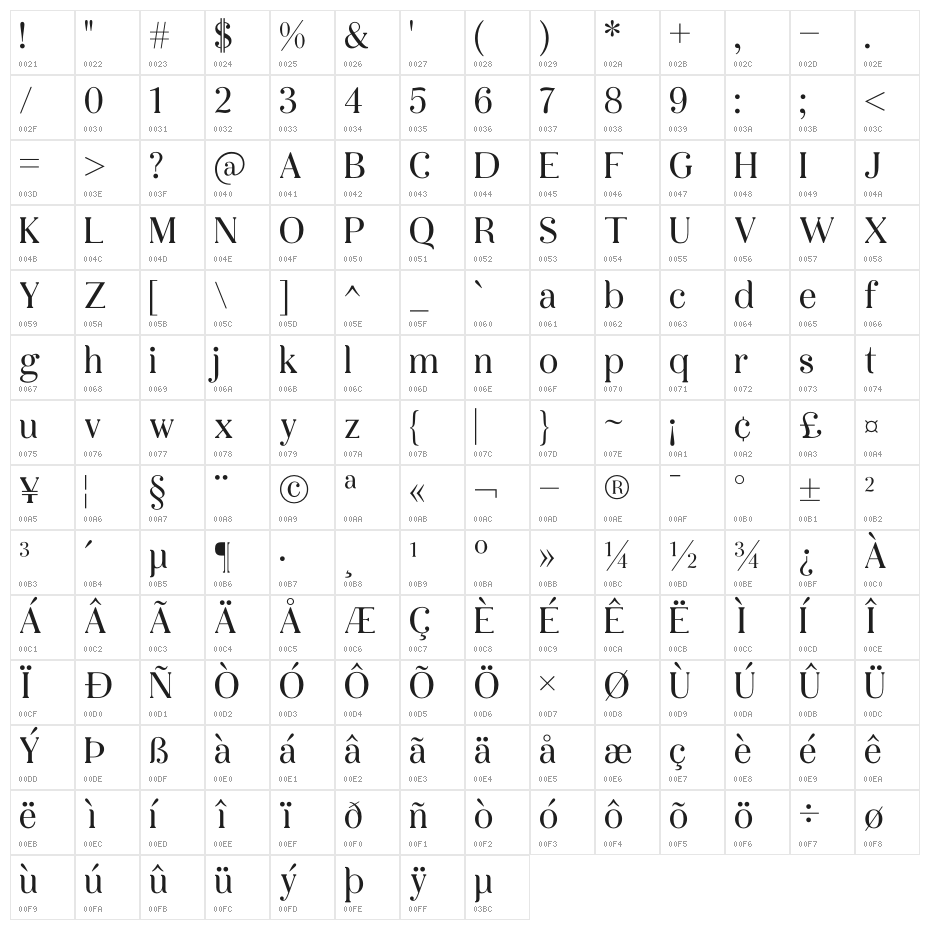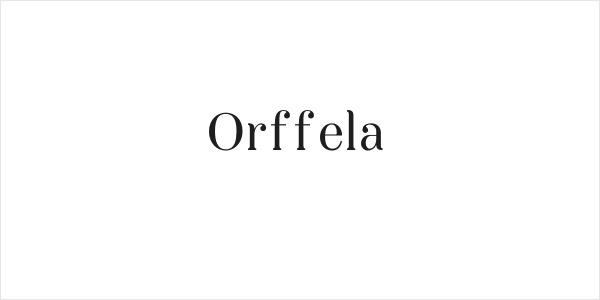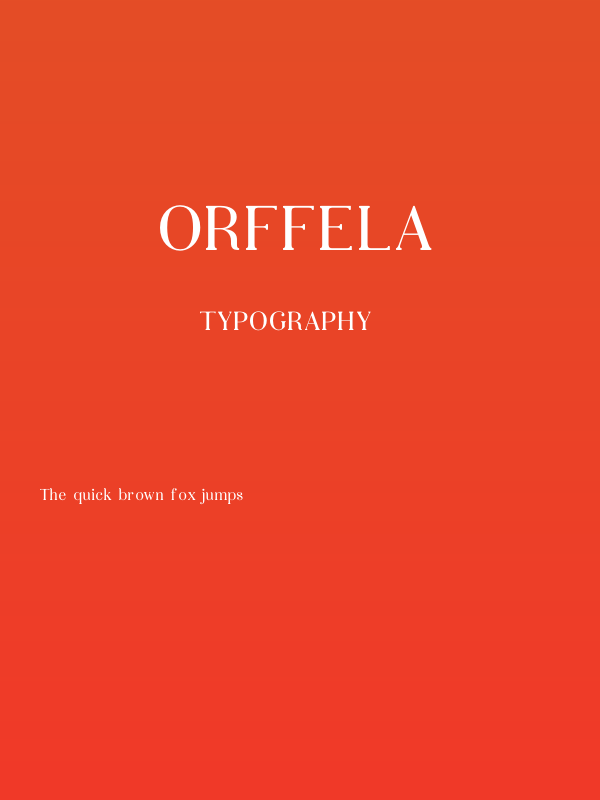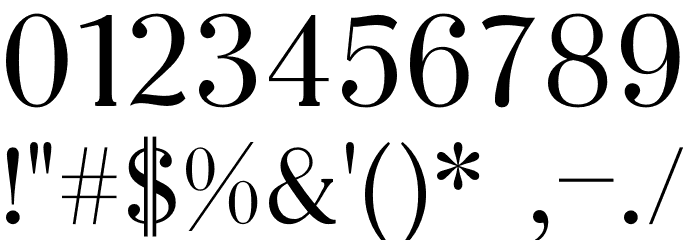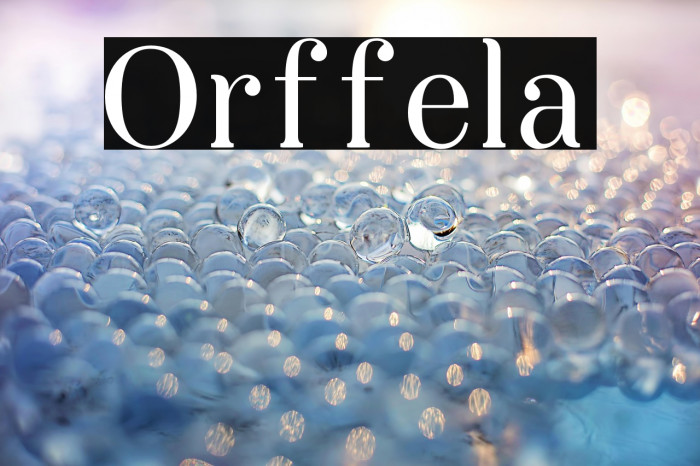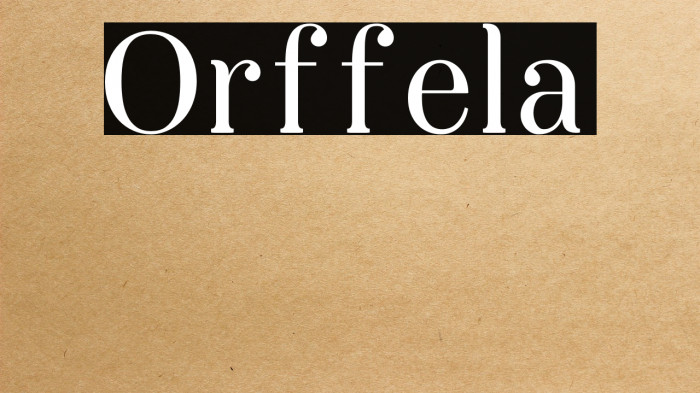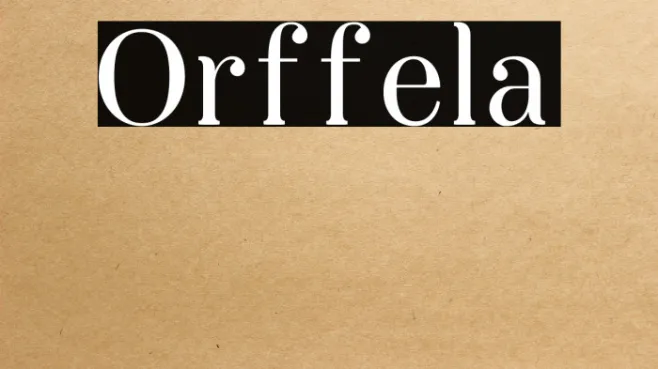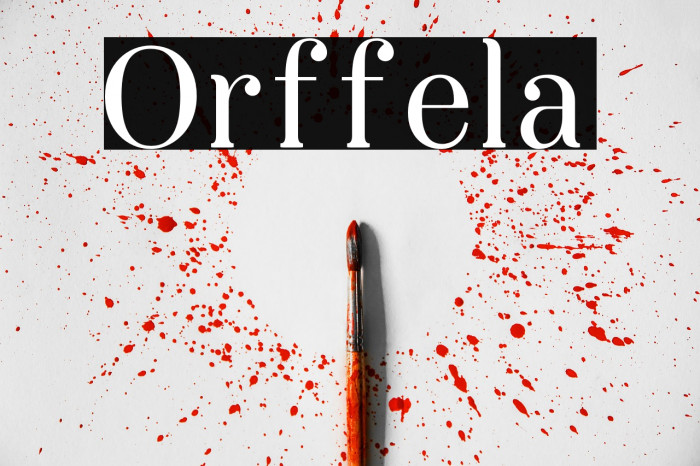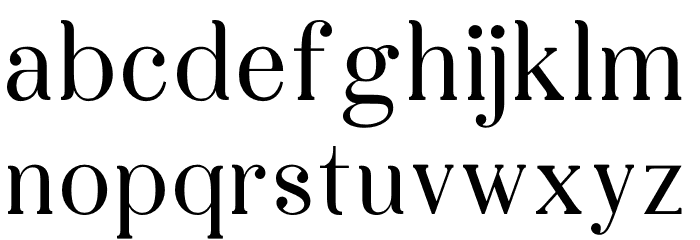
Orffela Font
Orffela Description
This font exhibits a classic serif style with elegant, thin strokes and subtle curves that enhance its readability and aesthetic appeal. The uppercase letters are well-proportioned, with a slight contrast between thick and thin strokes, giving it a sophisticated look. The lowercase letters maintain a consistent style, with rounded edges that add a touch of softness. The numerals are clear and distinct, making them suitable for both display and text purposes. Special characters are designed with the same attention to detail, ensuring uniformity across all glyphs. This font is versatile, suitable for both digital and print media, and can be used in a variety of design contexts.
| Proposed Projects | Perfect for book covers, editorial layouts, branding, and formal invitations. |